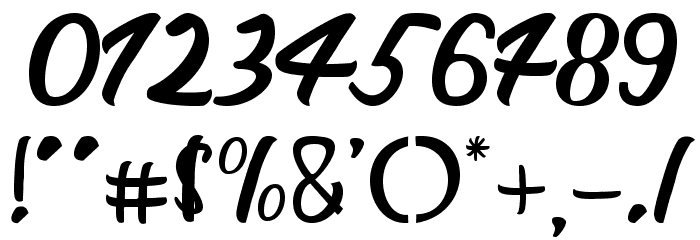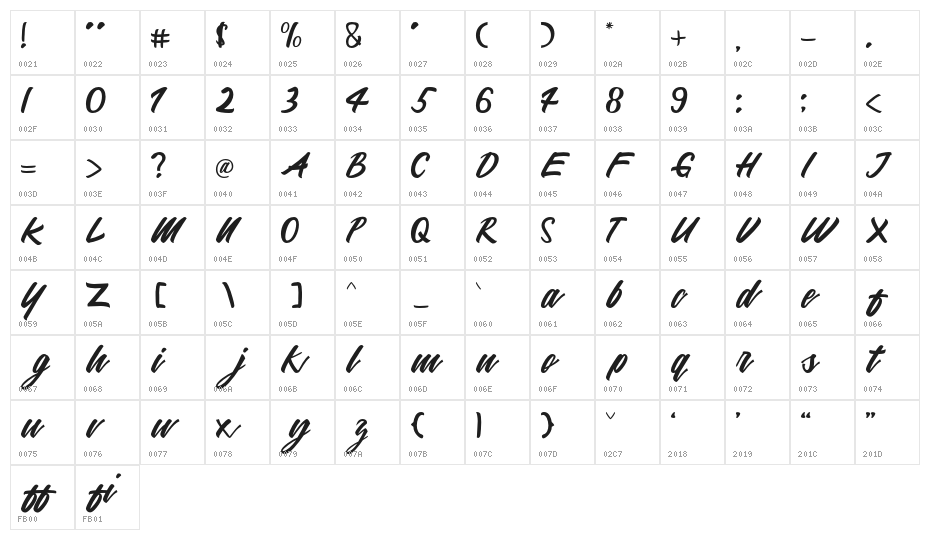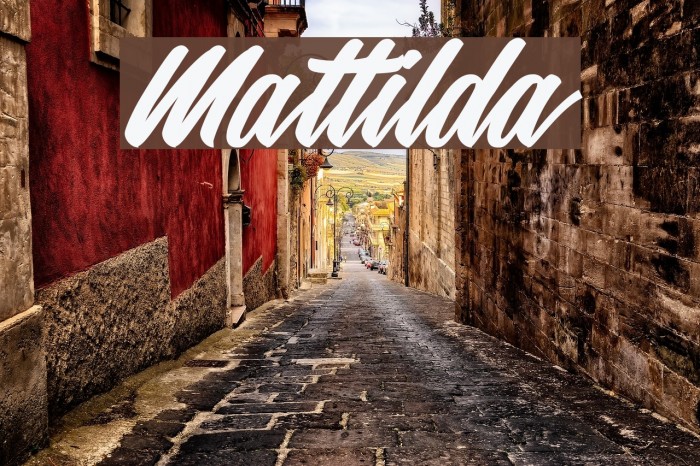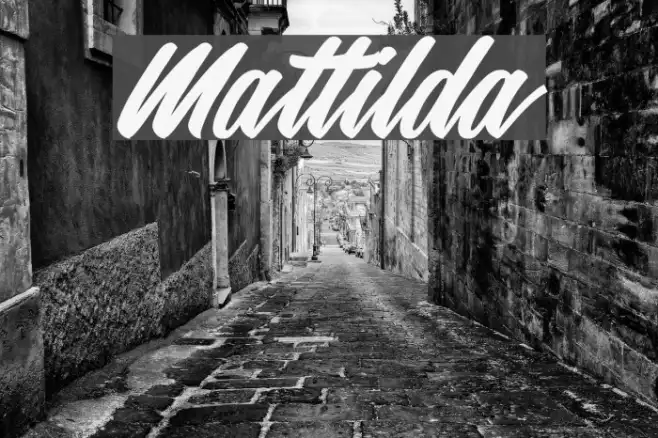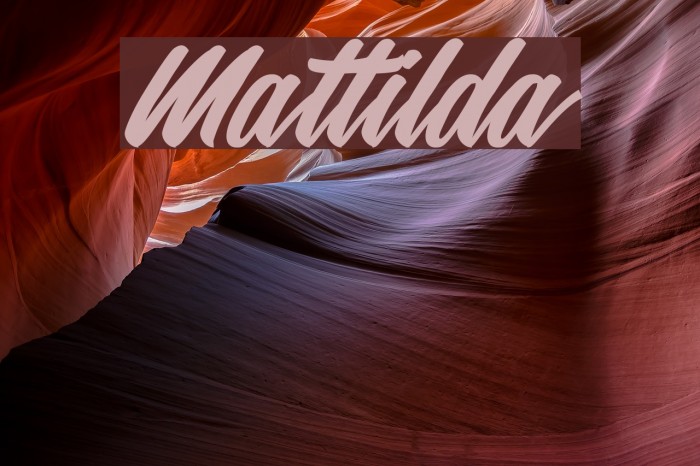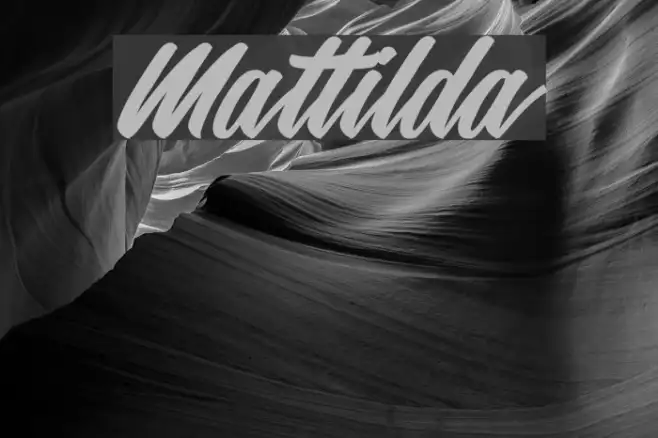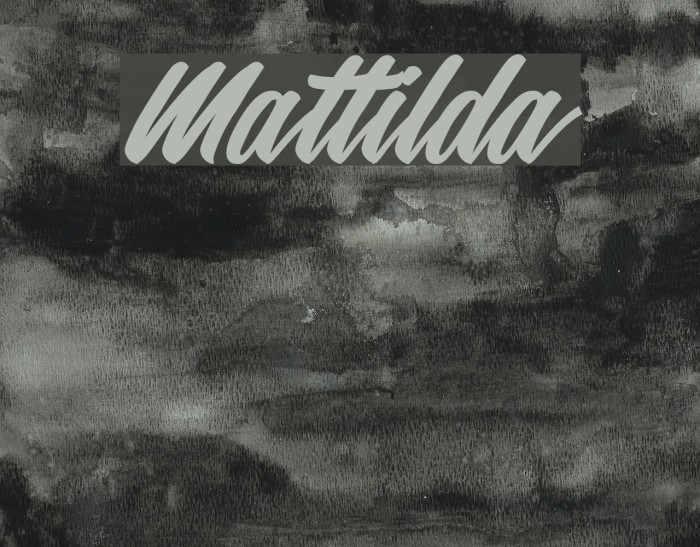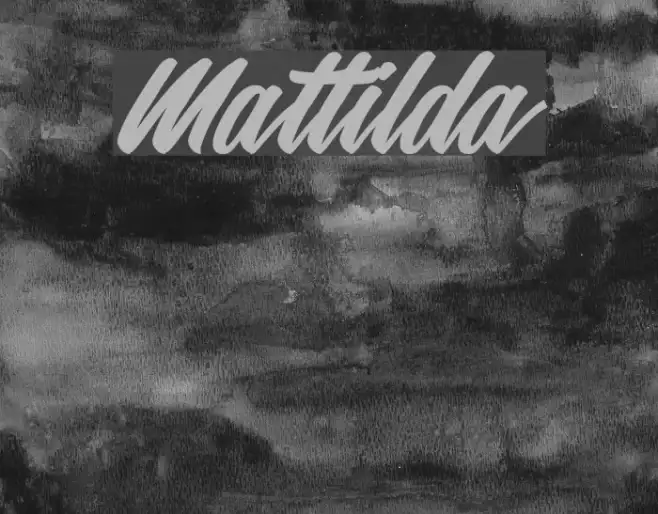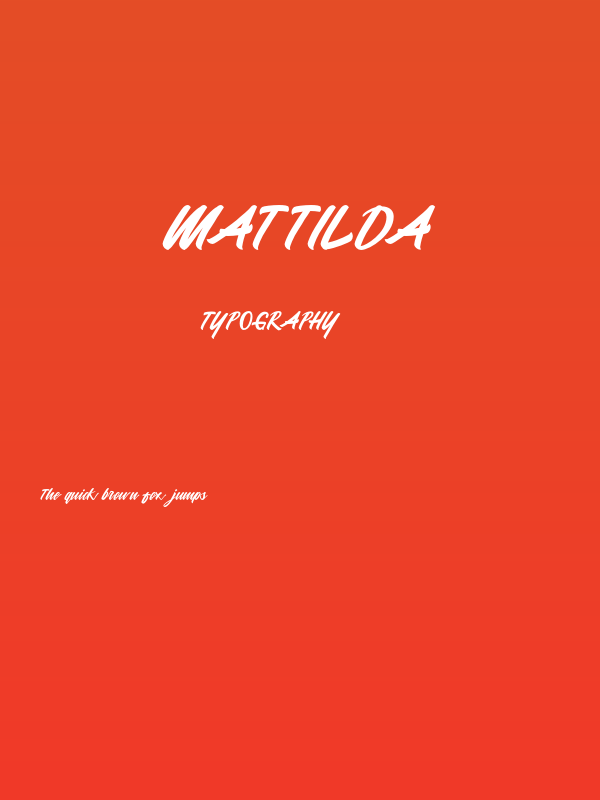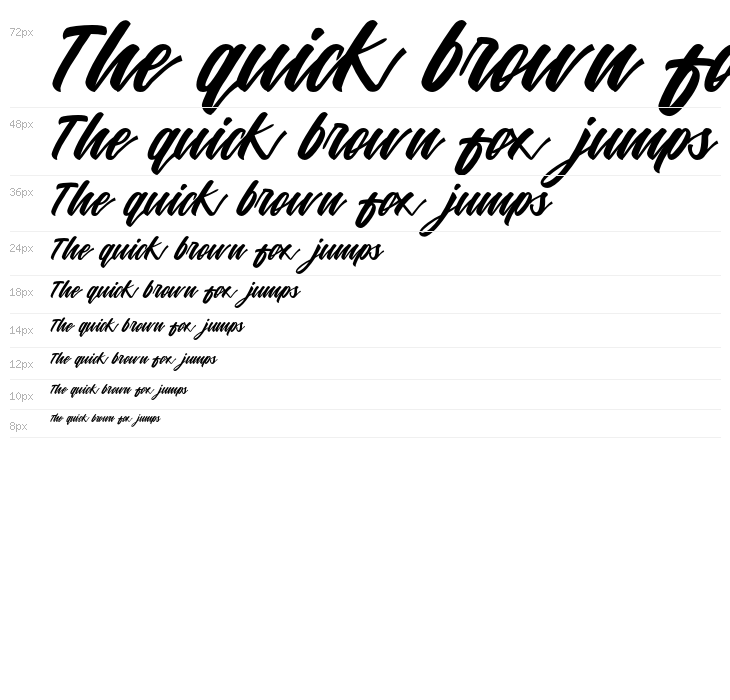
Mattilda Font
Mattilda Description
This font features a bold, cursive style with a dynamic and flowing appearance. The letters are interconnected, creating a sense of movement and elegance. The strokes are thick and consistent, providing a strong visual impact. The uppercase letters are slightly more angular, while the lowercase letters maintain a smooth, rounded form. The numerals and special characters are designed to match the overall cursive theme, ensuring uniformity across all glyphs. This font is ideal for projects that require a touch of sophistication and flair.
Use CaseLogos, Headlines, Invitations
Proposed ProjectsIdeal for wedding invitations, branding, logos, and elegant signage.